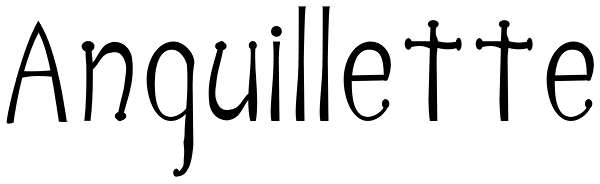
Anguillette
Every one talks about going Green. It will be the new economy. No one knows what that world might look like. However, type styles in the Art Nouveau looked to the environment for design influences years ago. This font is based on that concept and is...